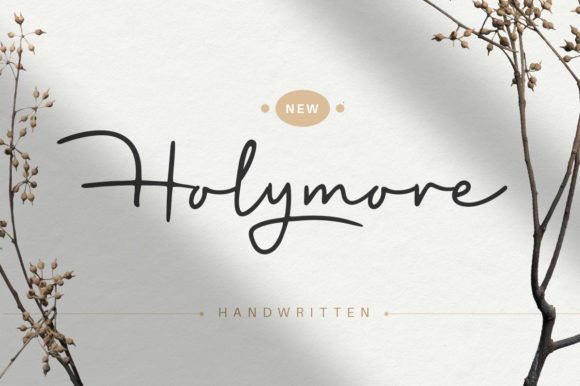
Prepare yourselves for a voyage into the world of typography, where elegance and creativity harmoniously intertwine. Introducing Holymore Font, the script that will cast a spell on your designs, transforming them into masterpieces.
Holymore is not just a collection of letters; it's an orchestra of strokes, each note a testament to the artistry that went into its creation. Its graceful curves evoke a sense of timeless beauty, while its delicate lines dance across the page like a ballerina.
Adorned with swashes that resemble whispered secrets, Holymore imparts an air of mystery, inviting the reader to delve deeper into the narrative your words create. Its whimsical nature adds a touch of playfulness, ensuring that your designs always carry a hint of joy.
But Holymore is more than just a pretty face; it's a versatile performer, equally at home in a lover's sonnet or a corporate presentation. Its adaptability makes it the perfect choice for a wide range of projects, from T-shirt quotes that speak to the soul to marketing campaigns that leave a lasting impression.
With Holymore as your trusted companion, you'll discover a world of creative possibilities. It's a font that empowers you to express your individuality, to share your stories, and to make a statement.
So, dear adventurers of the digital realm, embrace Holymore Font, let its magic infuse your designs, and embark on a journey where creativity knows no bounds.